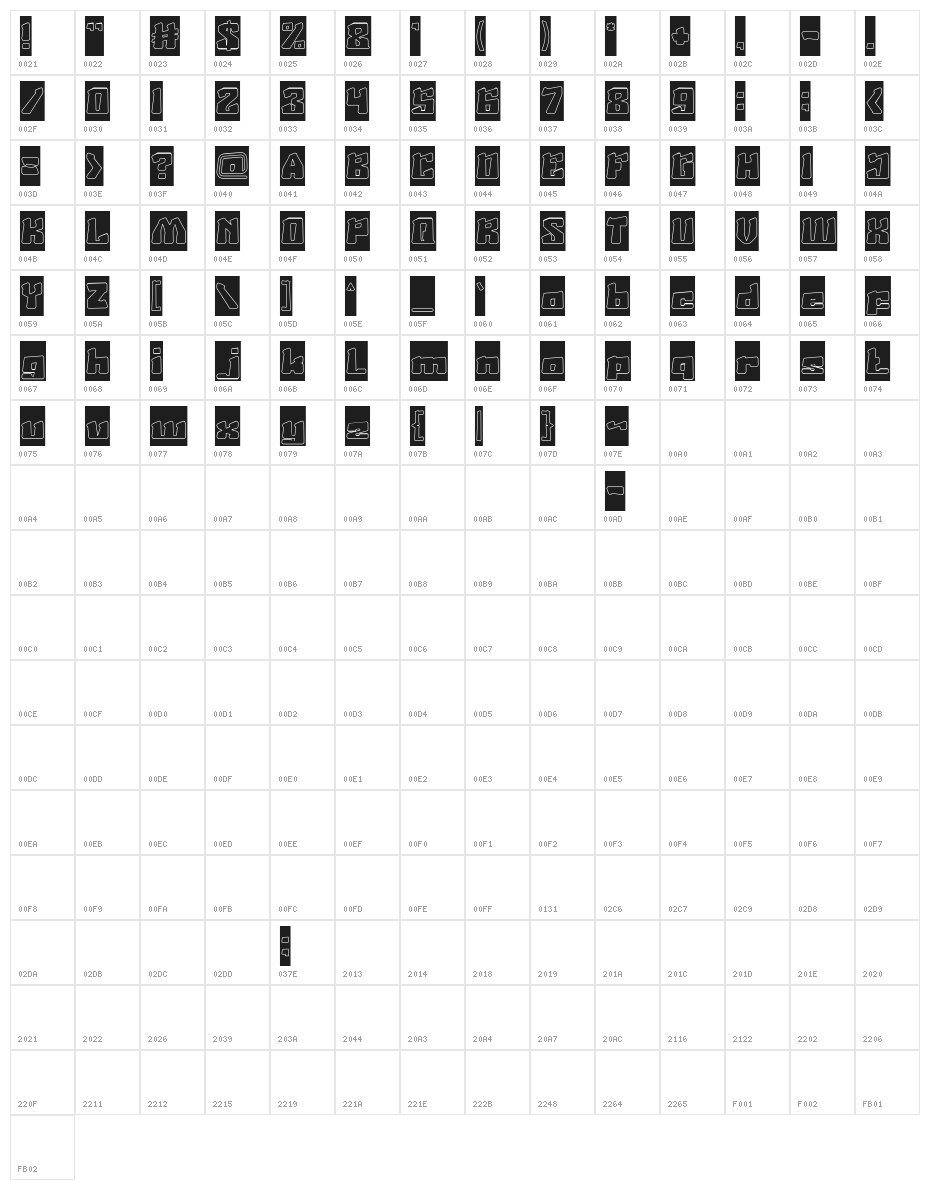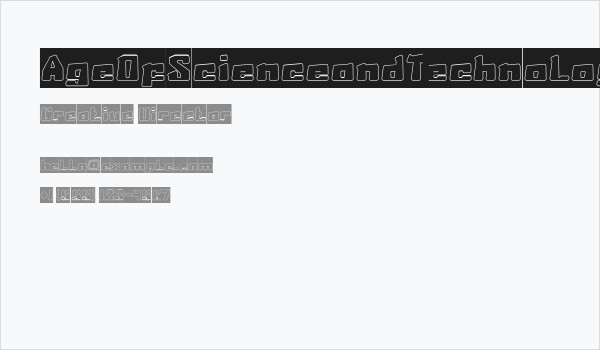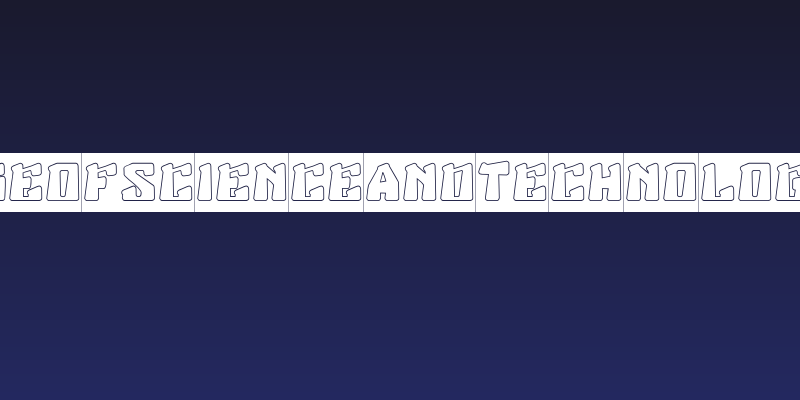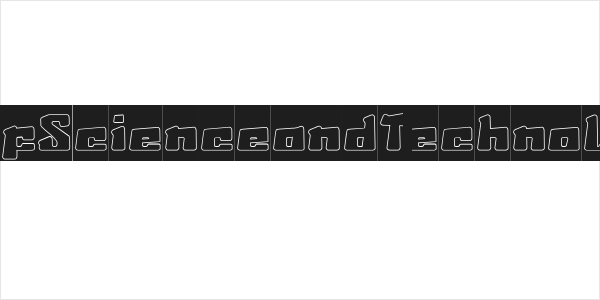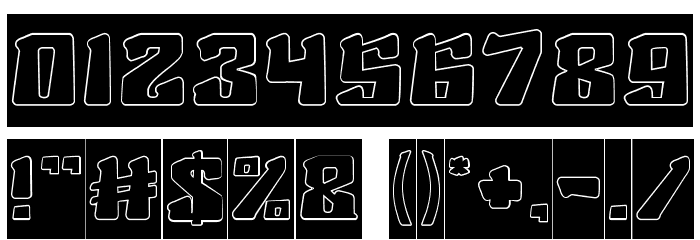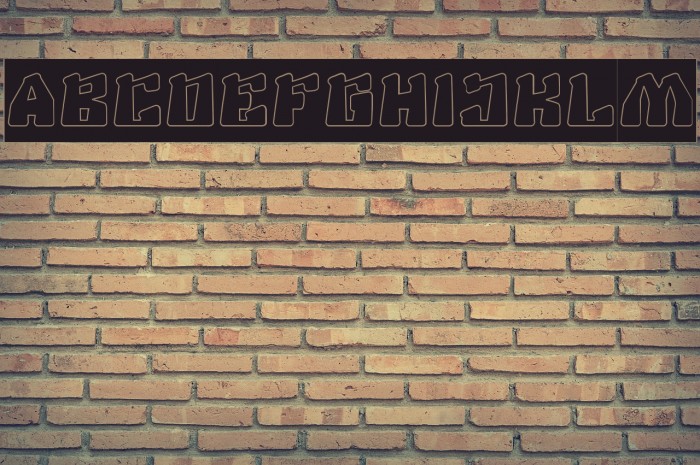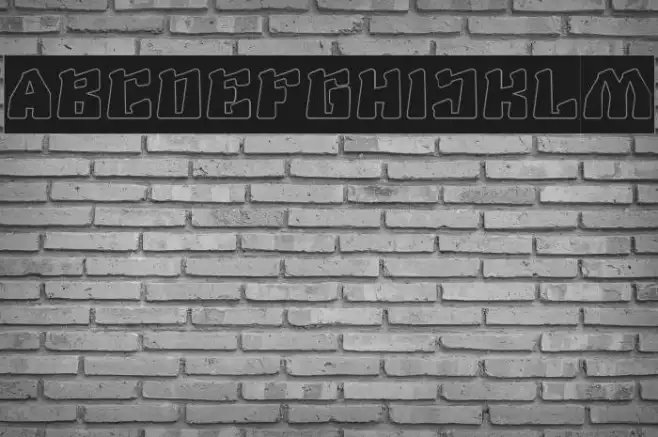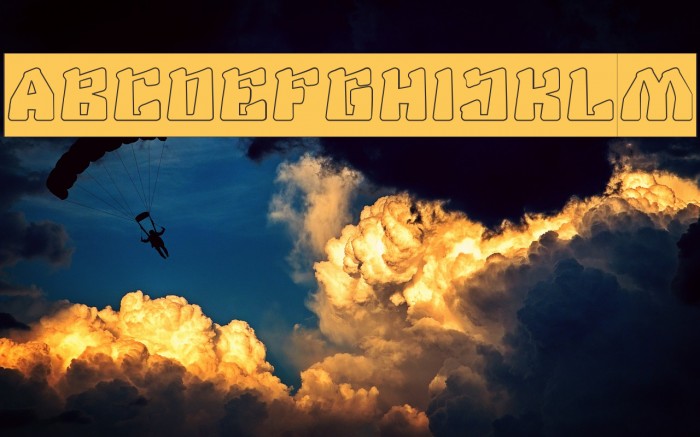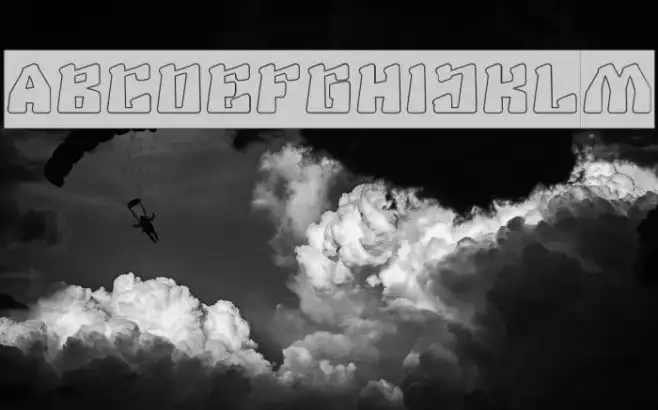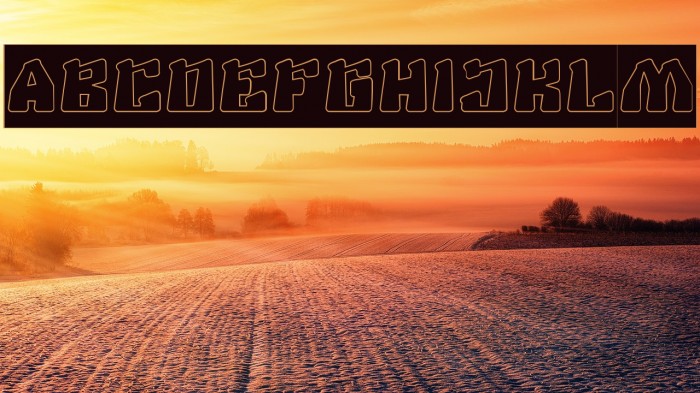
AgeOfScienceandTechnologyI Font
AgeOfScienceandTechnologyI Description
This font features a bold, futuristic design with a distinct outline style. Each character is enclosed within a box-like structure, giving it a geometric and structured appearance. The uppercase letters are particularly striking, with angular lines and sharp edges that convey a sense of modernity and innovation. The lowercase letters maintain this theme but with a slightly softer touch, making them more readable. Numbers and special characters are consistent with the overall design, ensuring a cohesive look across all elements. The font's unique style makes it ideal for projects that require a modern and technological aesthetic.
| Proposed Projects | Ideal for technology branding, sci-fi themed projects, video game titles, and modern posters. |